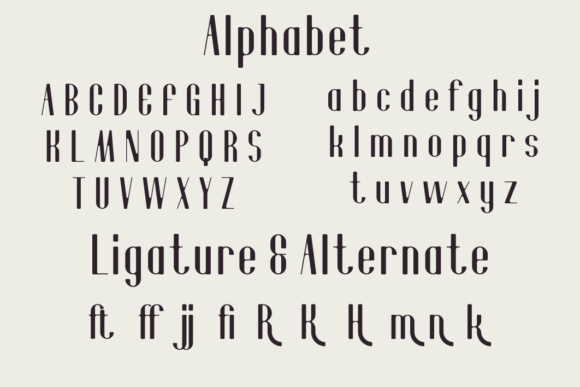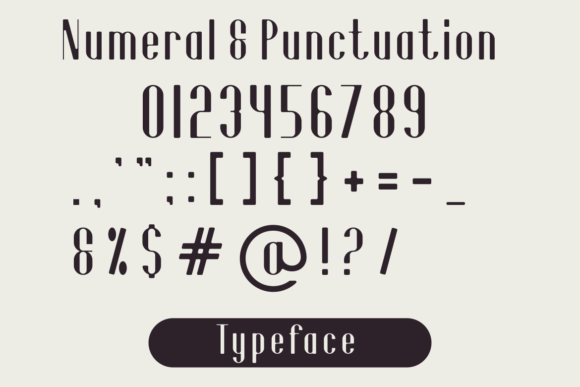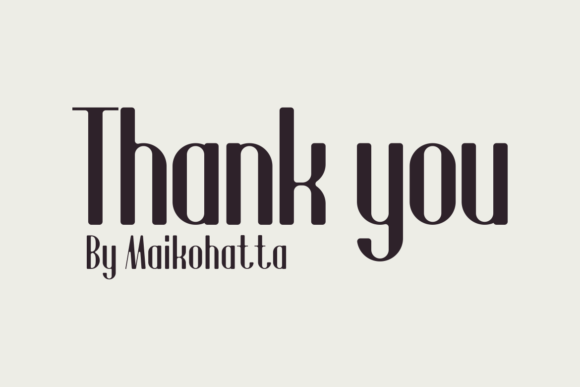
Introduction to Joaqueen Font
Joaqueen is a bold and authentic sans serif font suitable for any branding project such as logos, T-shirt printing, esports, and many more.
Outstanding in a wide range of contexts, this font is guaranteed to make your work extraordinary .
Key Features of Joaqueen Font
Why Choose Joaqueen Font?